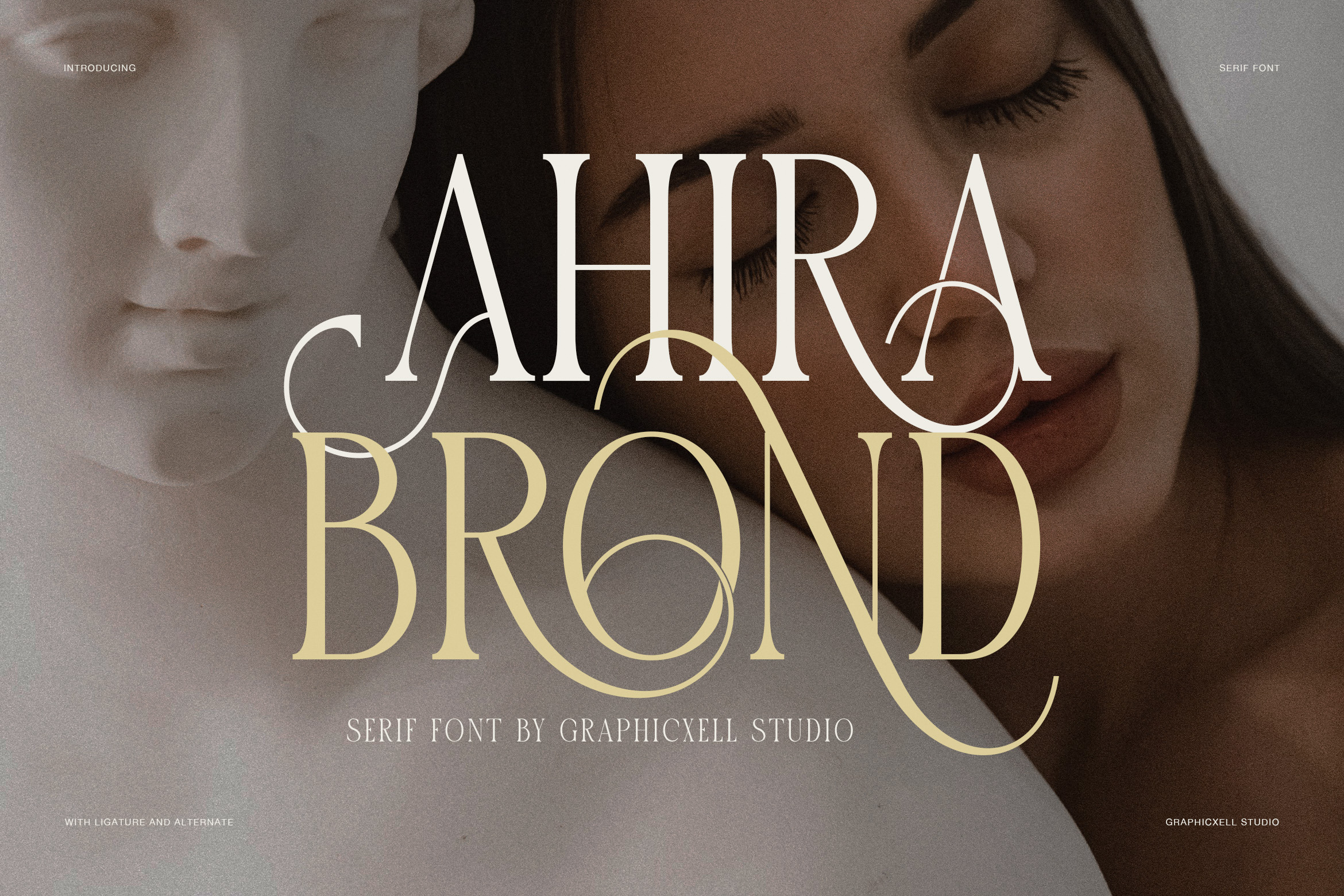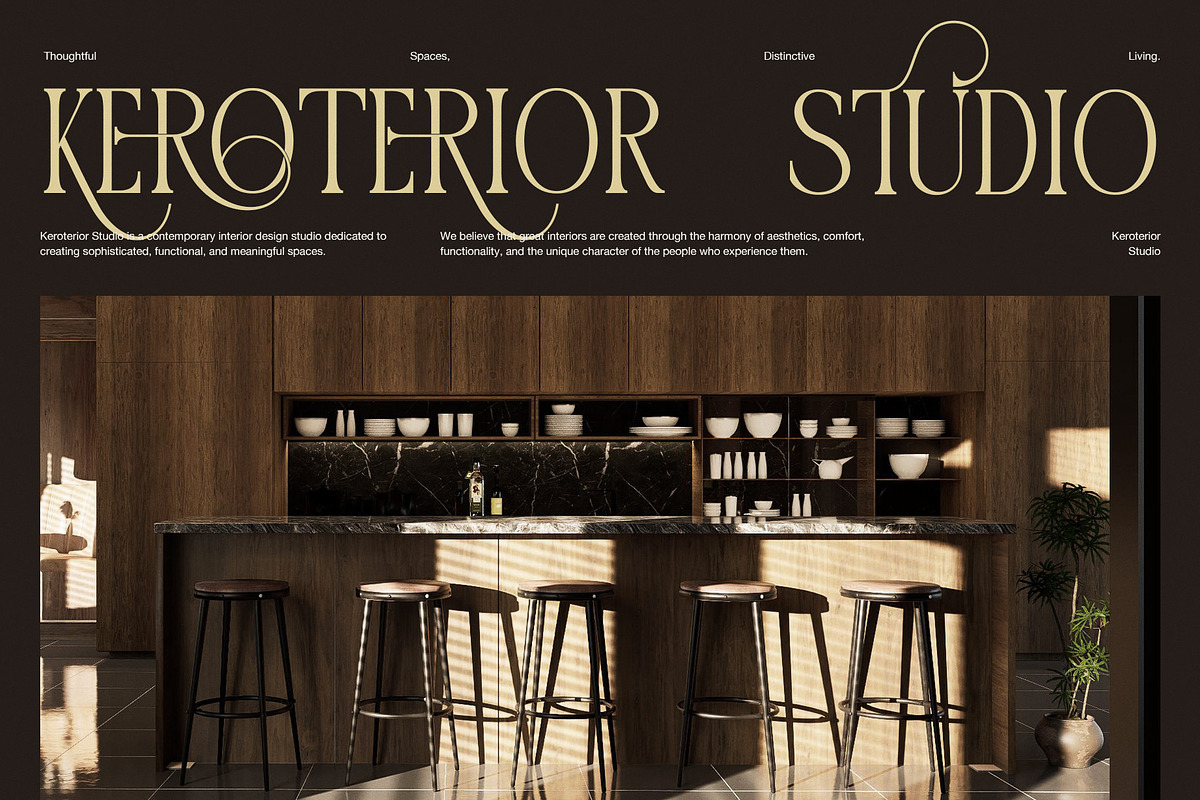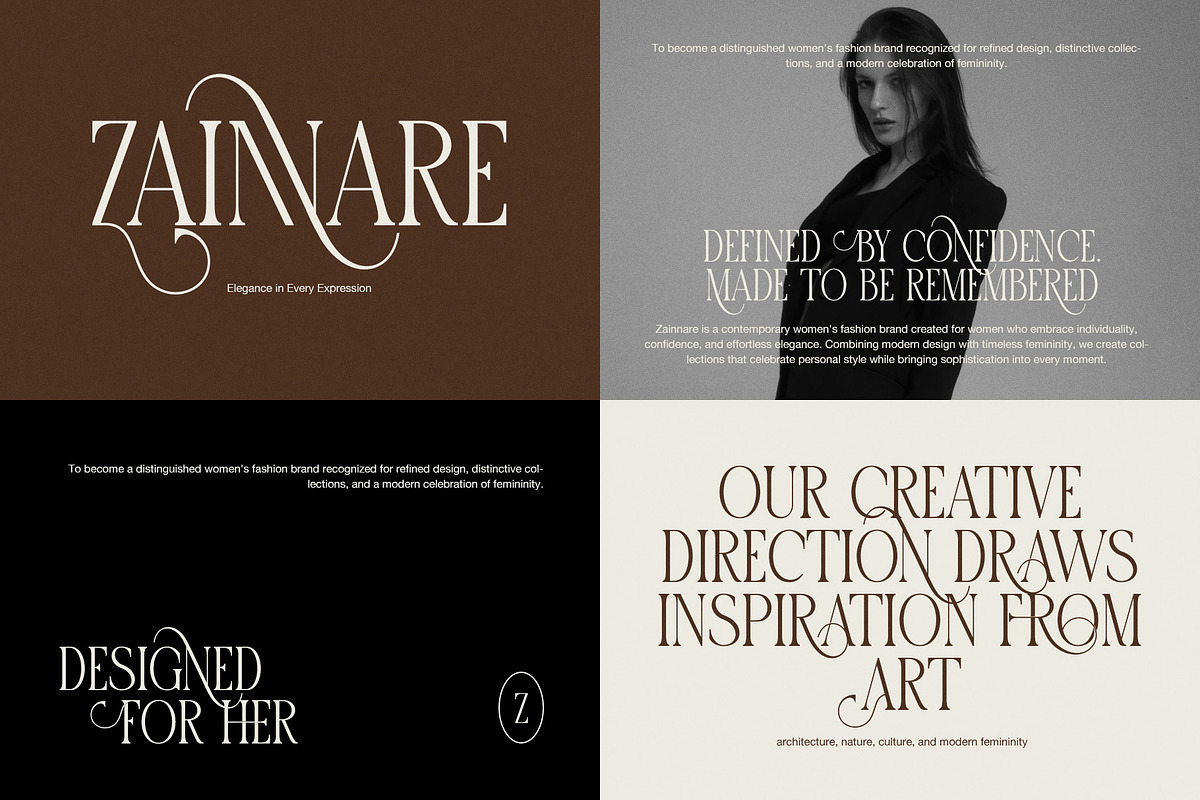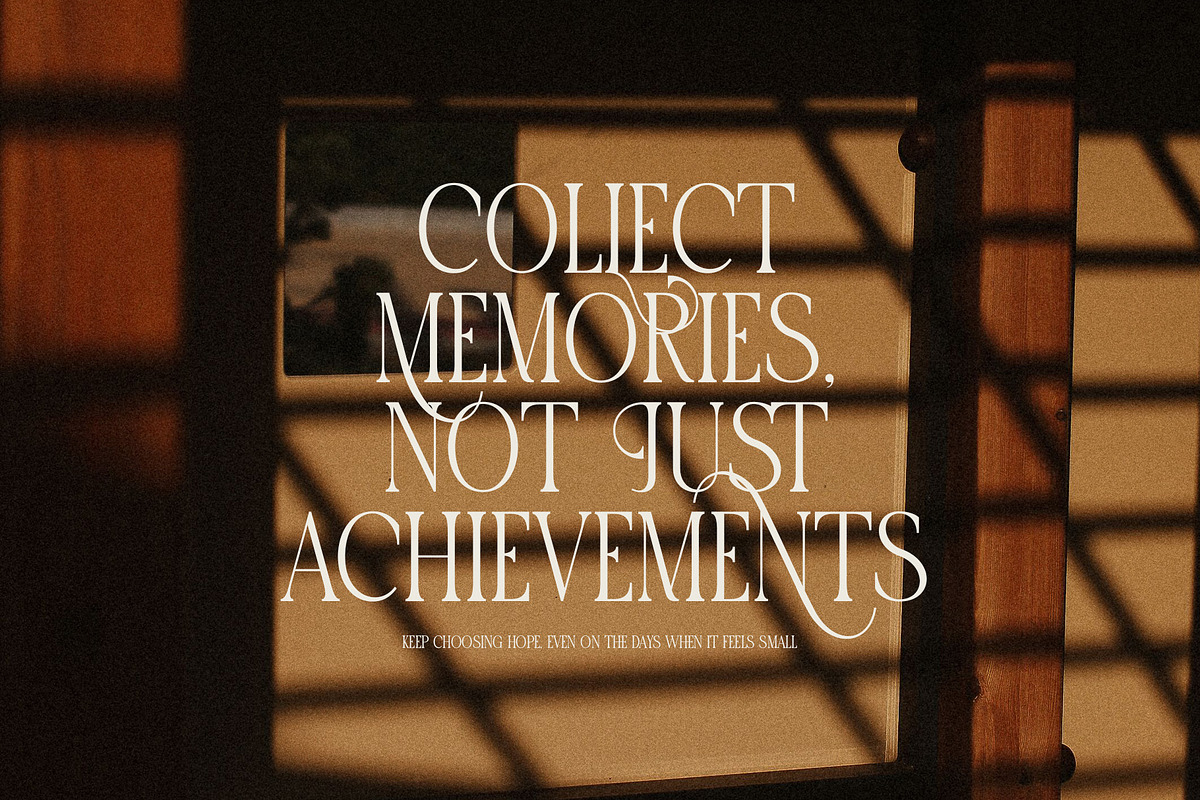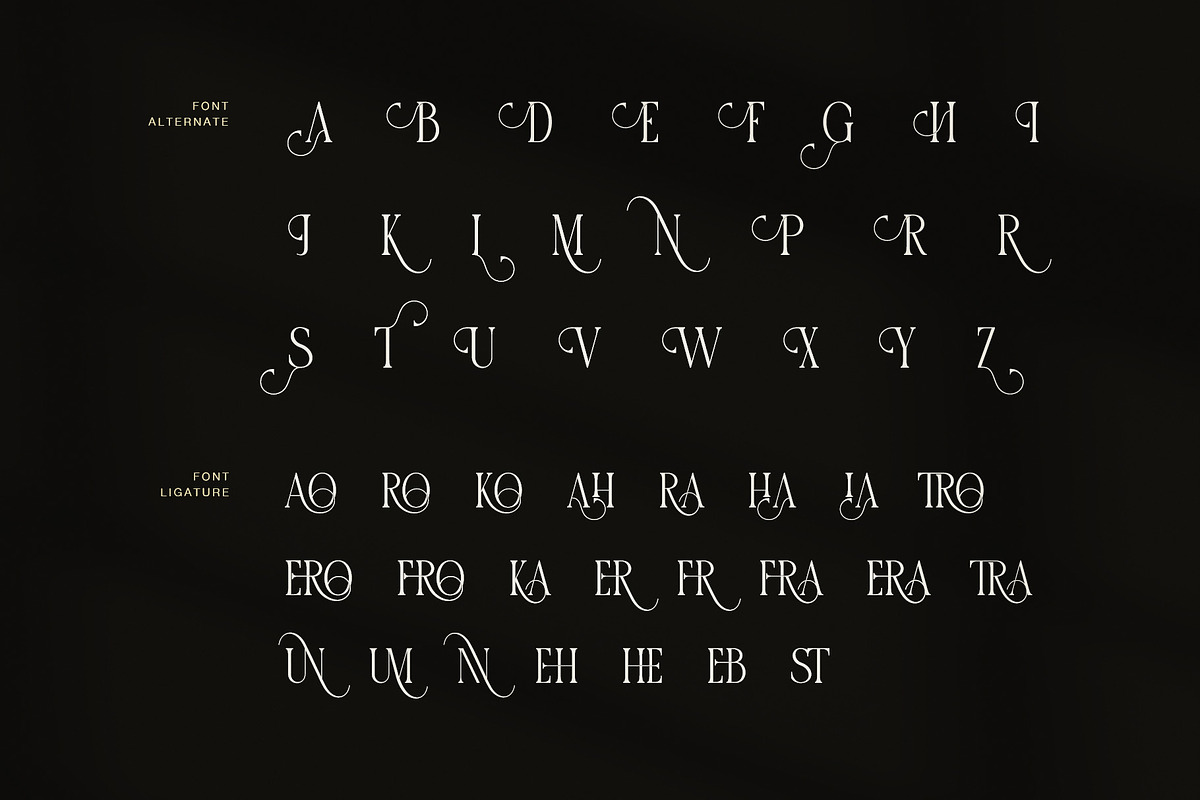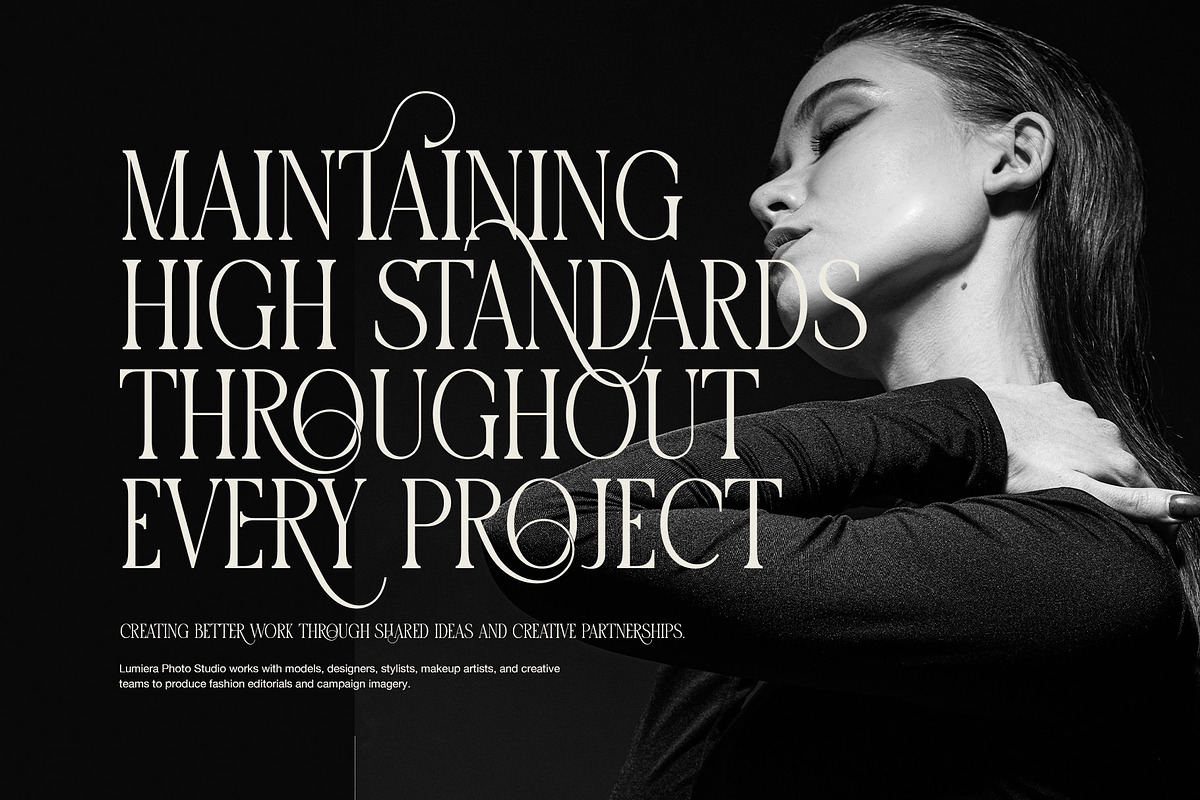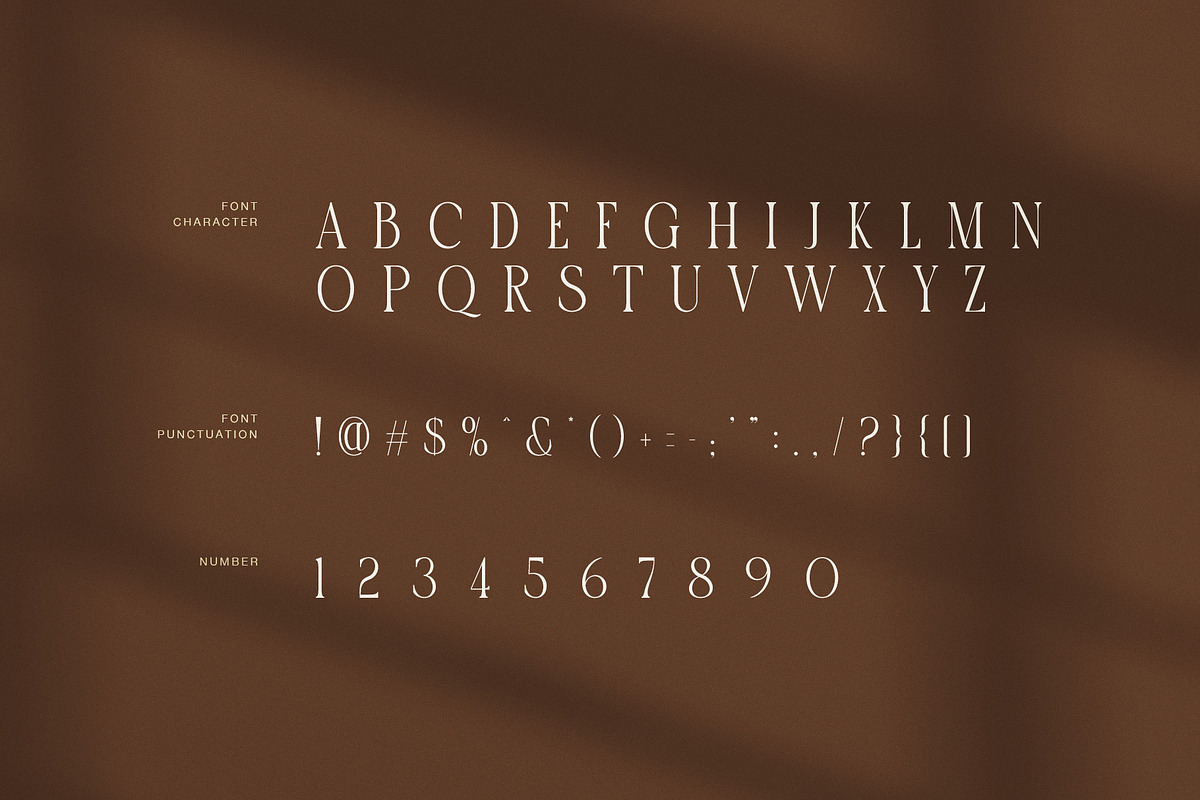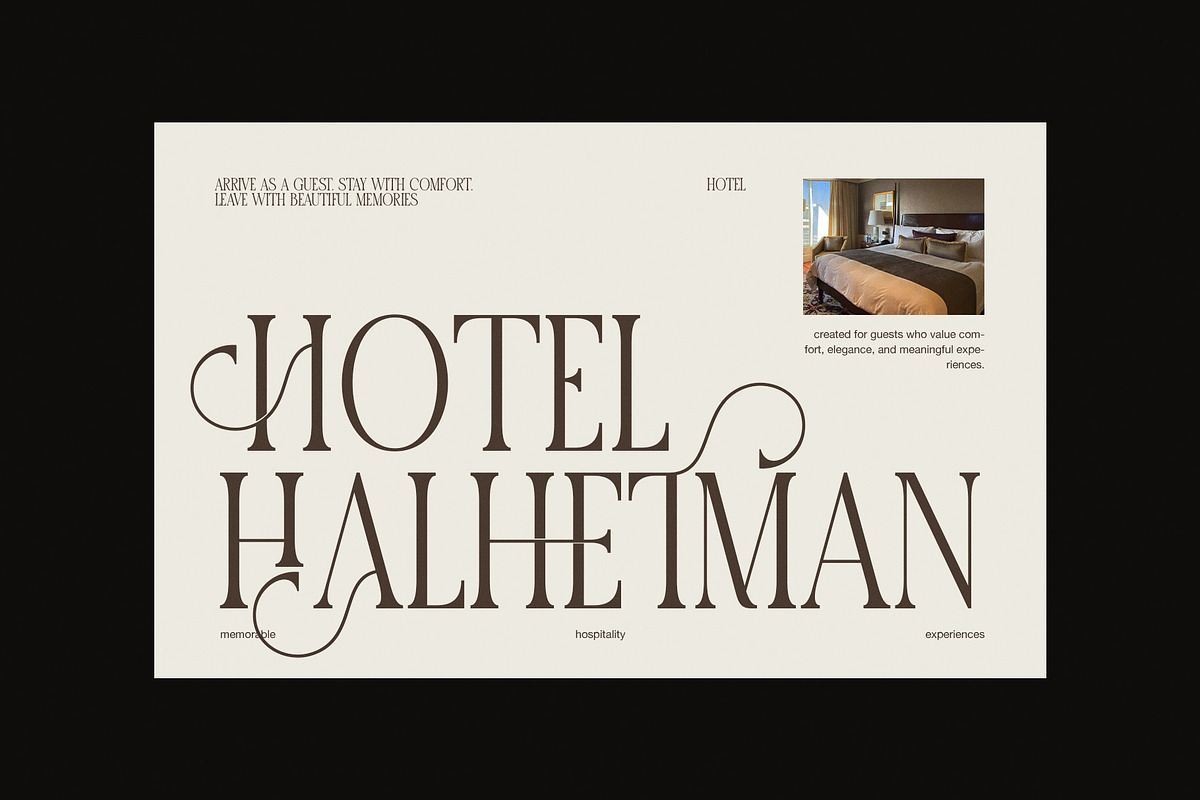
Ahira Brond Contrast Serif Font
Ahira Brond is a high contrast serif font designed for elegant, fashion-led typography. Its tall proportions, fine hairlines, sharp contrast, and graceful curves create a refined editorial look. At the same time, its distinctive letterforms give each design a polished and memorable character.
This elegant serif font is made for designers who want a sophisticated display style. Its narrow proportions work beautifully in large headlines, while its delicate details add a luxurious touch. As a result, Ahira Brond can create a strong visual identity without looking overly complex.
The font has a strong connection with fashion, beauty, luxury, and editorial design. Therefore, it works especially well for brands that need a refined and feminine appearance. Its high contrast also gives headlines a dramatic presence, making the typeface suitable for premium visual projects.
Ahira Brond includes stylish alternate characters, decorative swashes, and elegant ligatures. These features give designers more creative freedom when building logos, titles, invitations, and promotional artwork. Moreover, they allow selected letters to become more expressive without changing the overall character of the typeface.
Fashion branding
Beauty and cosmetics
Luxury logos
Editorial layouts
Magazine covers
Wedding invitations
Boutique branding
Product packaging
Posters and advertisements
Hotel and lifestyle branding
Elegant monograms
The decorative alternates are especially useful for creating distinctive wordmarks. Meanwhile, the ligatures can add subtle details to selected letter combinations. Therefore, designers can create typography that feels more personal, artistic, and carefully crafted.